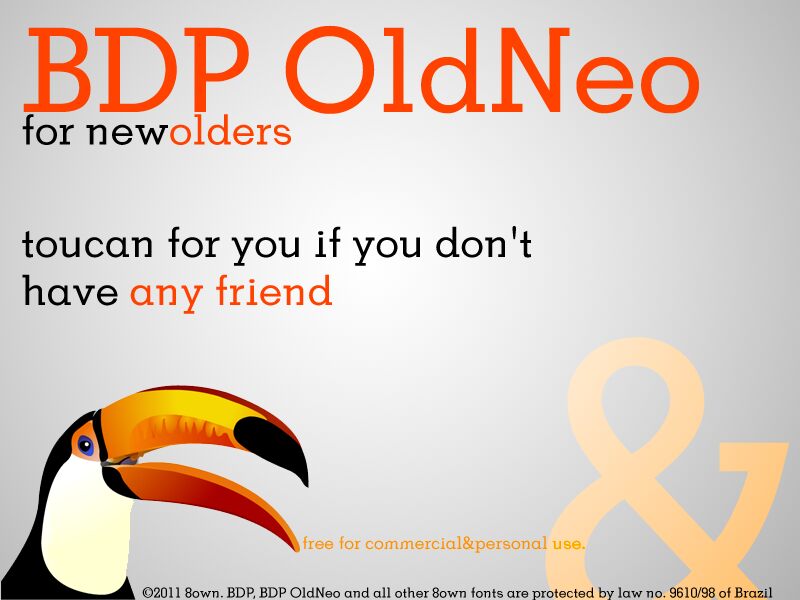
BDP OldNeo by Álvaro Thomáz of 8own is a free high-contrast serif font with broad, stately proportions, open rounded forms, and crisp editorial poise. Its hairline serifs meet substantial upright strokes.
Publishing is its clearest setting: the dramatic change in stroke weight gives magazine covers and fashion features the polish of a modern Didone face, especially for mastheads and prominent display lines. It also suits luxury packaging, cultural posters, and restaurant branding, where the sharp silhouettes can echo refined photography, architectural details, or precise line illustration as part of a coordinated image system.
BDP OldNeo
Álvaro Thomáz